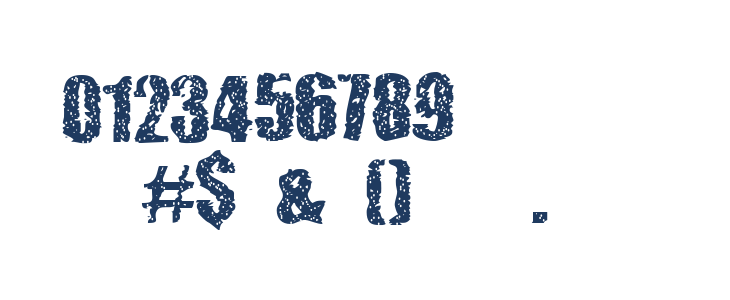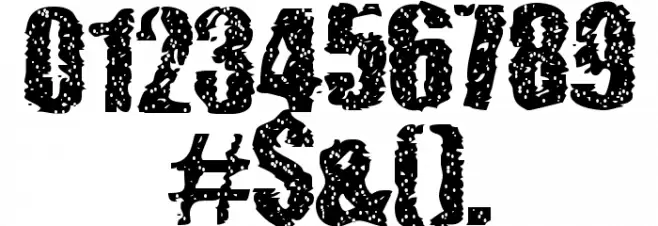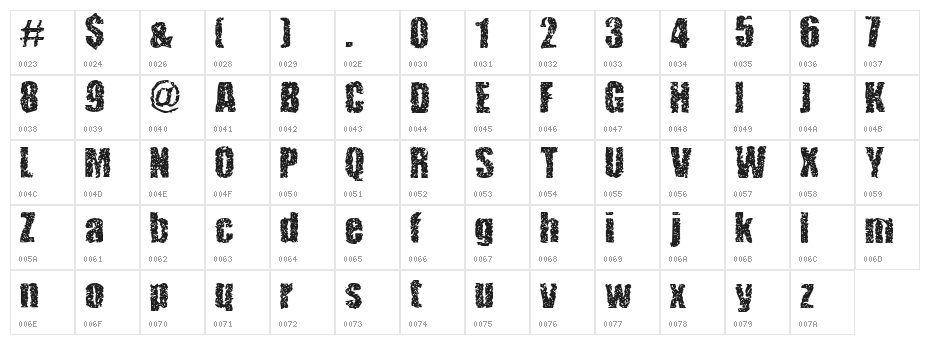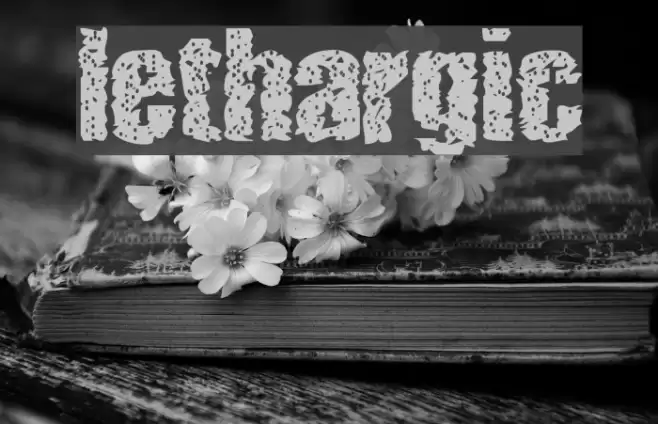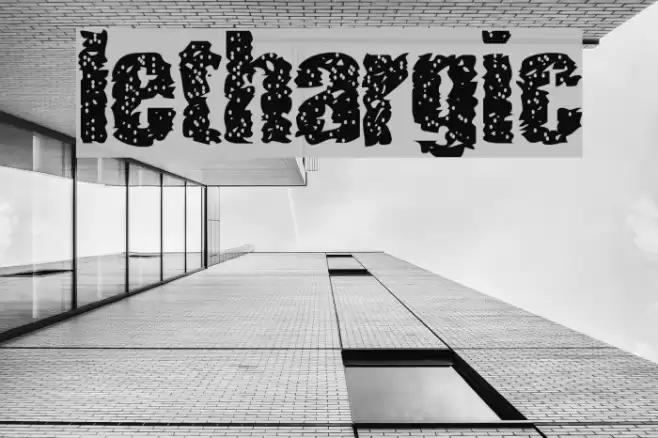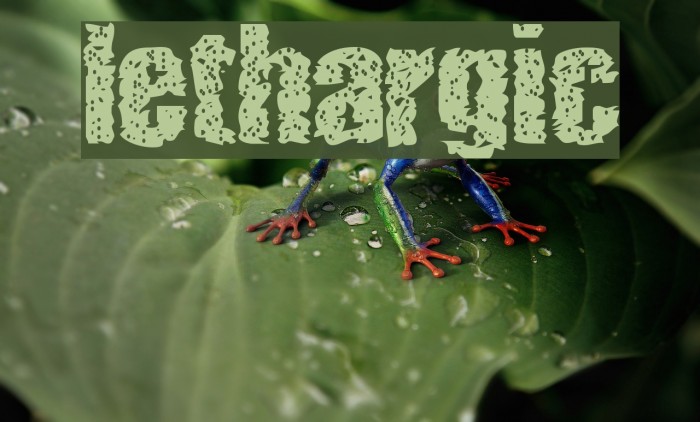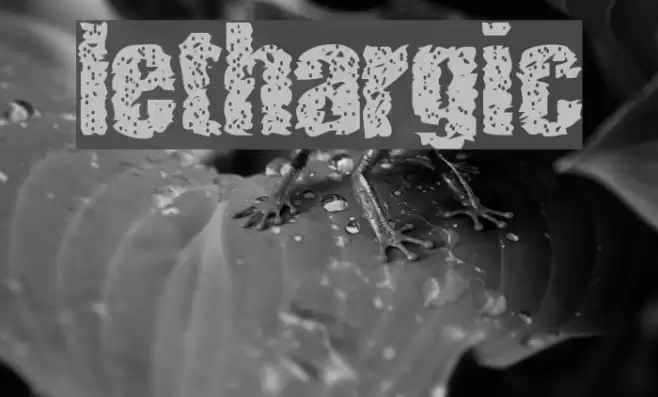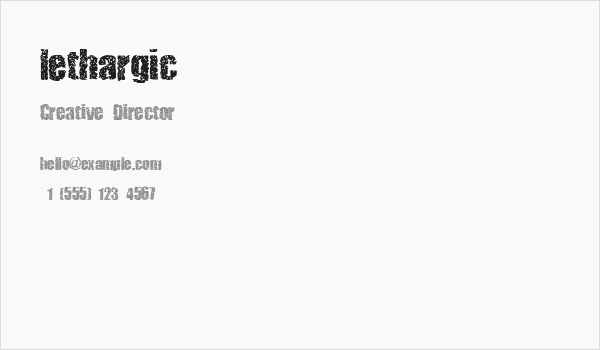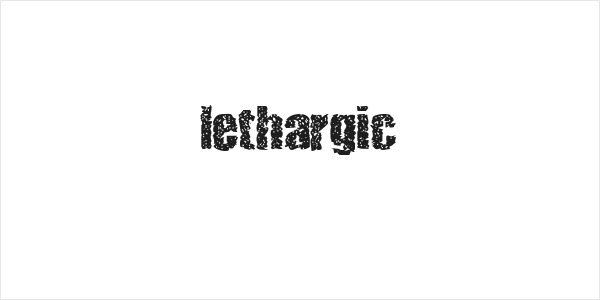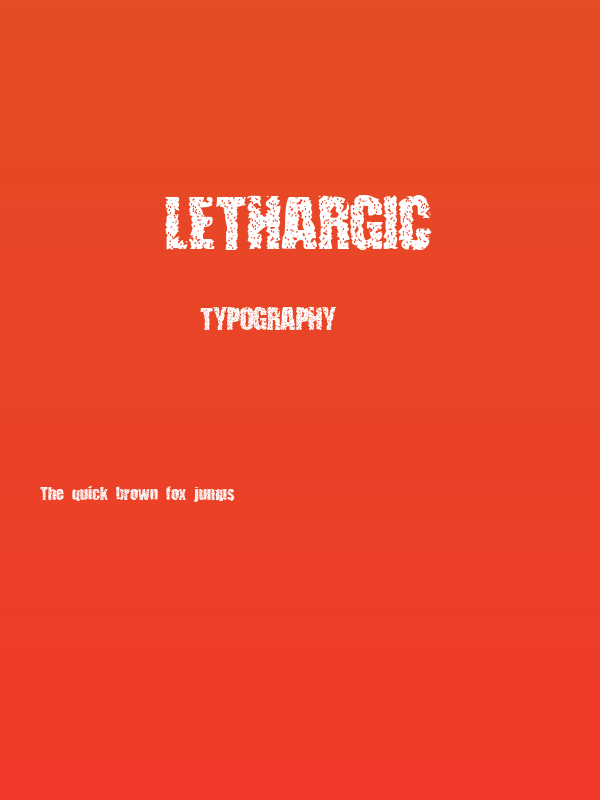
lethargic Font
lethargic Description
This font exhibits a bold, distressed style with a textured appearance that gives it a rugged and weathered look. The characters are heavily stylized, featuring irregular edges and a speckled pattern that suggests wear and tear. This design choice adds a sense of depth and character, making it stand out as a decorative option. The uppercase and lowercase letters maintain a consistent style, with the numbers and special characters following suit. The font's unique aesthetic makes it suitable for projects that require a gritty or vintage feel, such as posters, album covers, or themed events.
| Proposed Projects | Ideal for posters, album covers, themed events, and any project requiring a gritty, vintage aesthetic. |